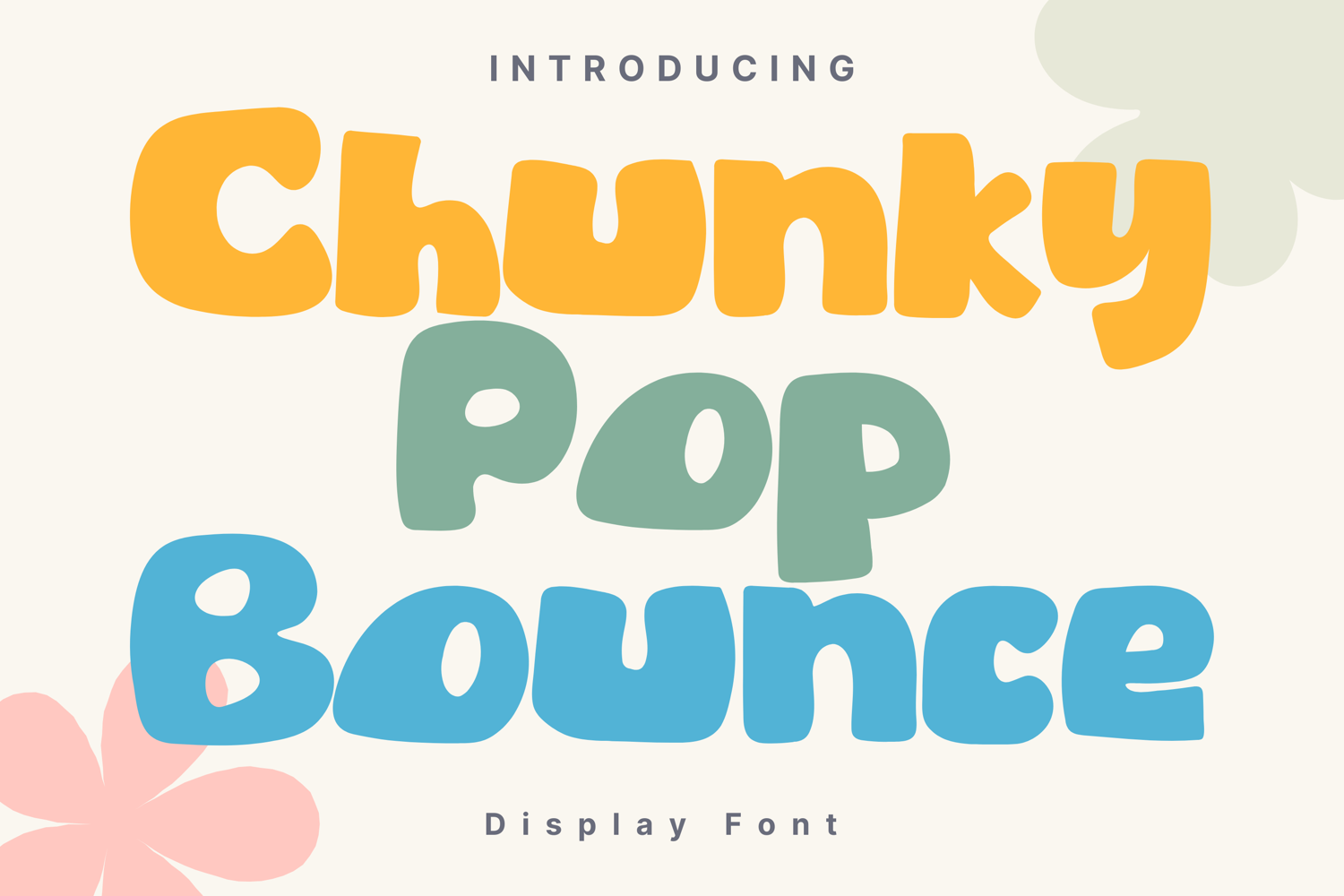
Chunky Pop Bounce Style
ChunkyPopBounce
Chunky Pop Bounce is a bold and playful display font with rounded, bubbly characters that bring instant fun and cheer to any design. With its thick strokes and friendly curves, it’s perfect for children’s projects, food branding, event posters, social media graphics, and eye-catching headlines. The energetic style makes it stand out while keeping a warm and approachable vibe.